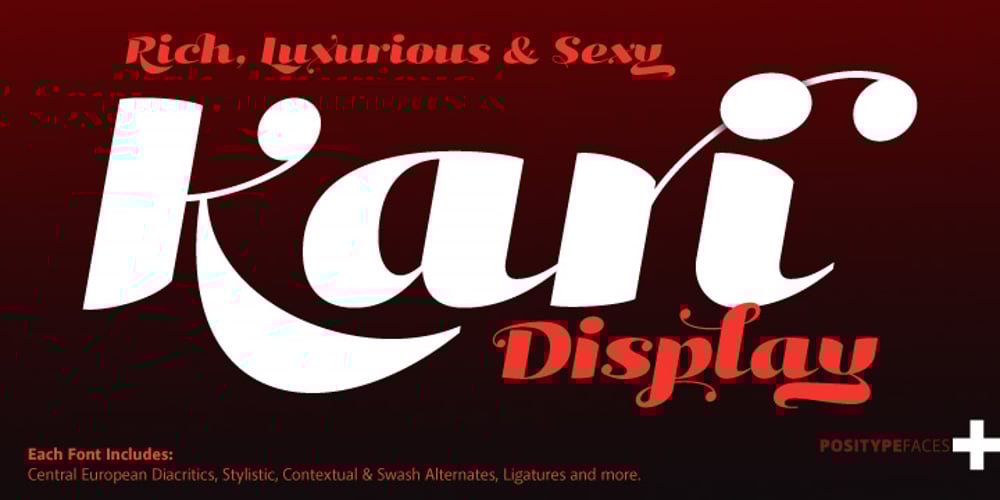
Kari Display
Kari Display font
Kari Display Font Family was designed by Neil Summerour and published by Positype. Kari Display contains 8 styles and family package options. Kari Display is the product of a long standing idea I had to give the well-received Positype typeface, Kari, plastic surgery. Just referring to giving a typeface plastic surgery, or letter lipo, stuck in the back of my head until I was able to pick the project up. The ultimate objective was to refine Kari Display to a point where each glyph was expressed as simple as possible… and in that simplicity a sexiness would appear. Kari is a beautiful script, but it is very ‘controlled’ and orderly and I wanted Kari Display to break that mold with much more movement, curviness, greater modulation and a more elegant feel on the page. I did not want to take it too far, limiting the use of the typeface, but rather opted for a delicate balance of thick and thin against the added movement of the glyphs. The wealth of sketches and proposed variants during the concepting phase was encouraging and I really pushed to add as many alternate characters, ligatures, swashes (and more) as I possibly could. Just about every character has at least one or more alternates AND the complete offering of alternates completely covers a wide range of Latin-based language groups including Central European diacritics. If you are using any type of OpenType enabled application, then the Kari Display Pro typefaces are the way to go. They include everything found in the 3 separate variants for each style as well as entirely expanding offering of additional swash and ligature sets.